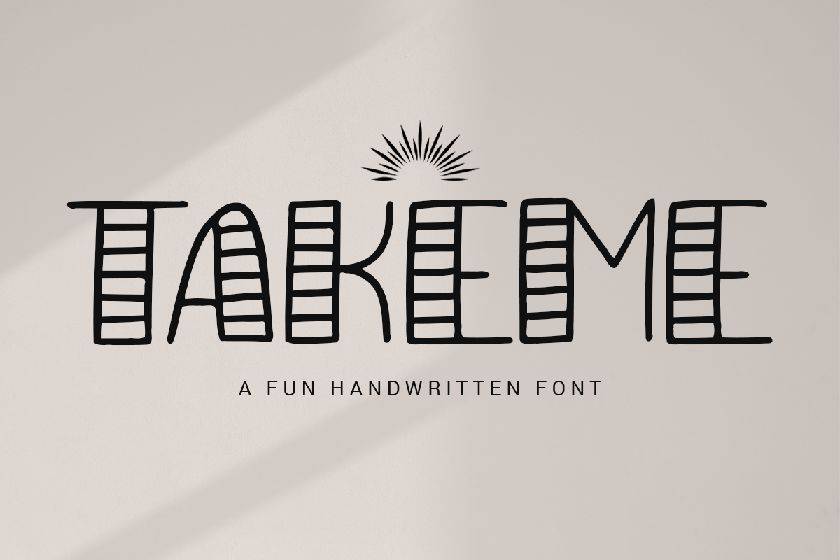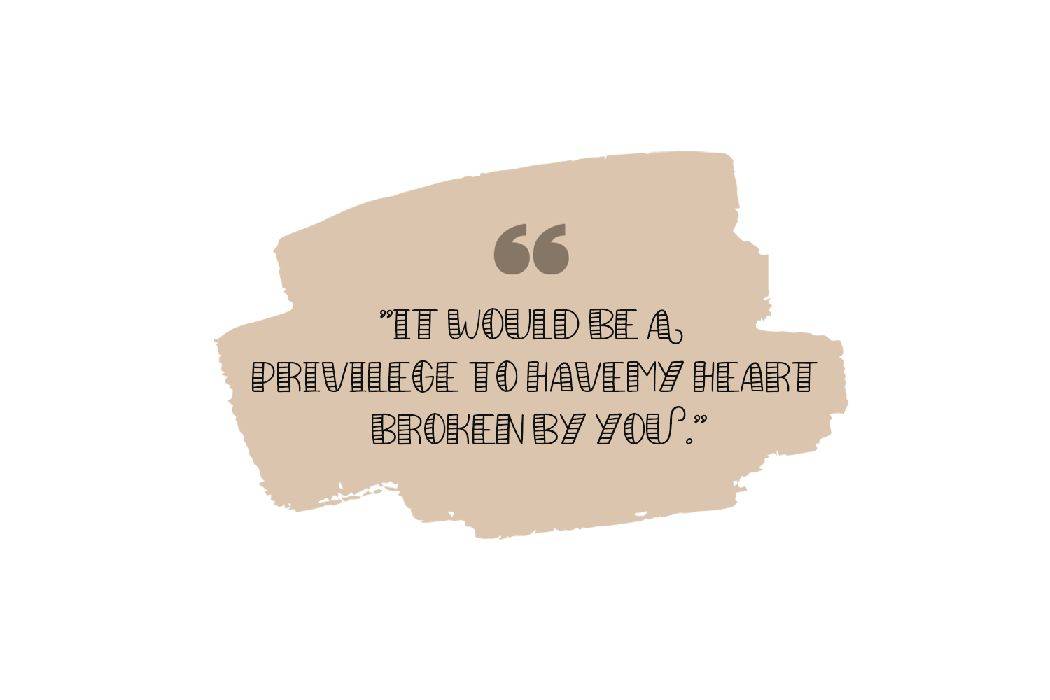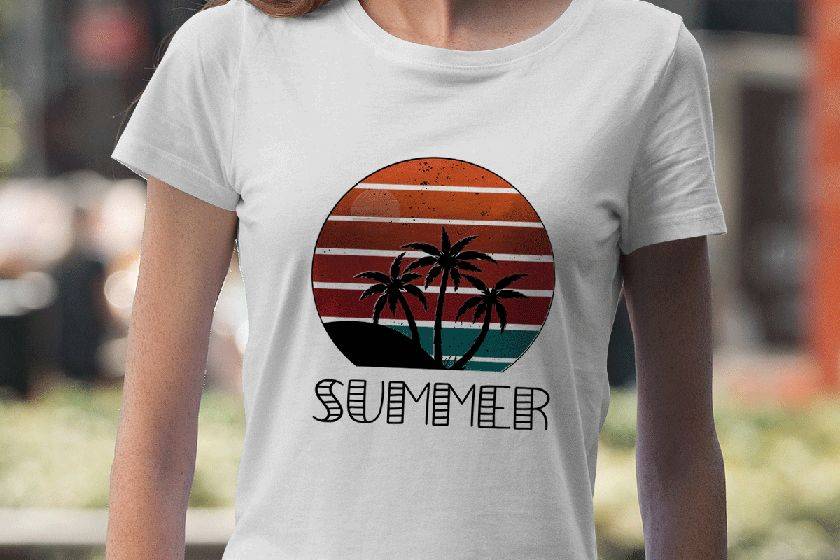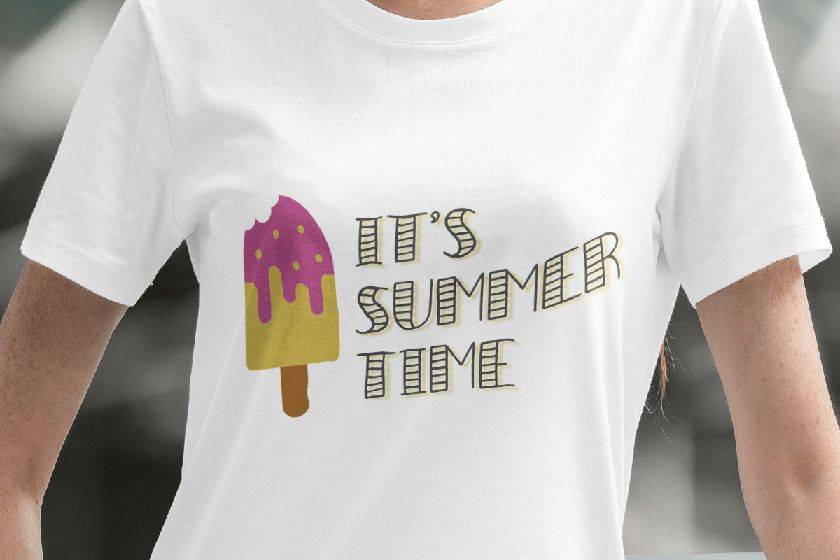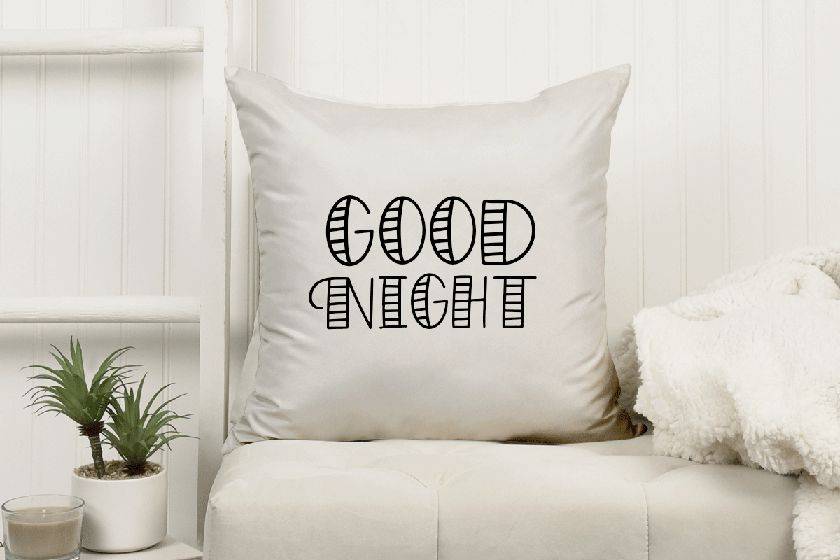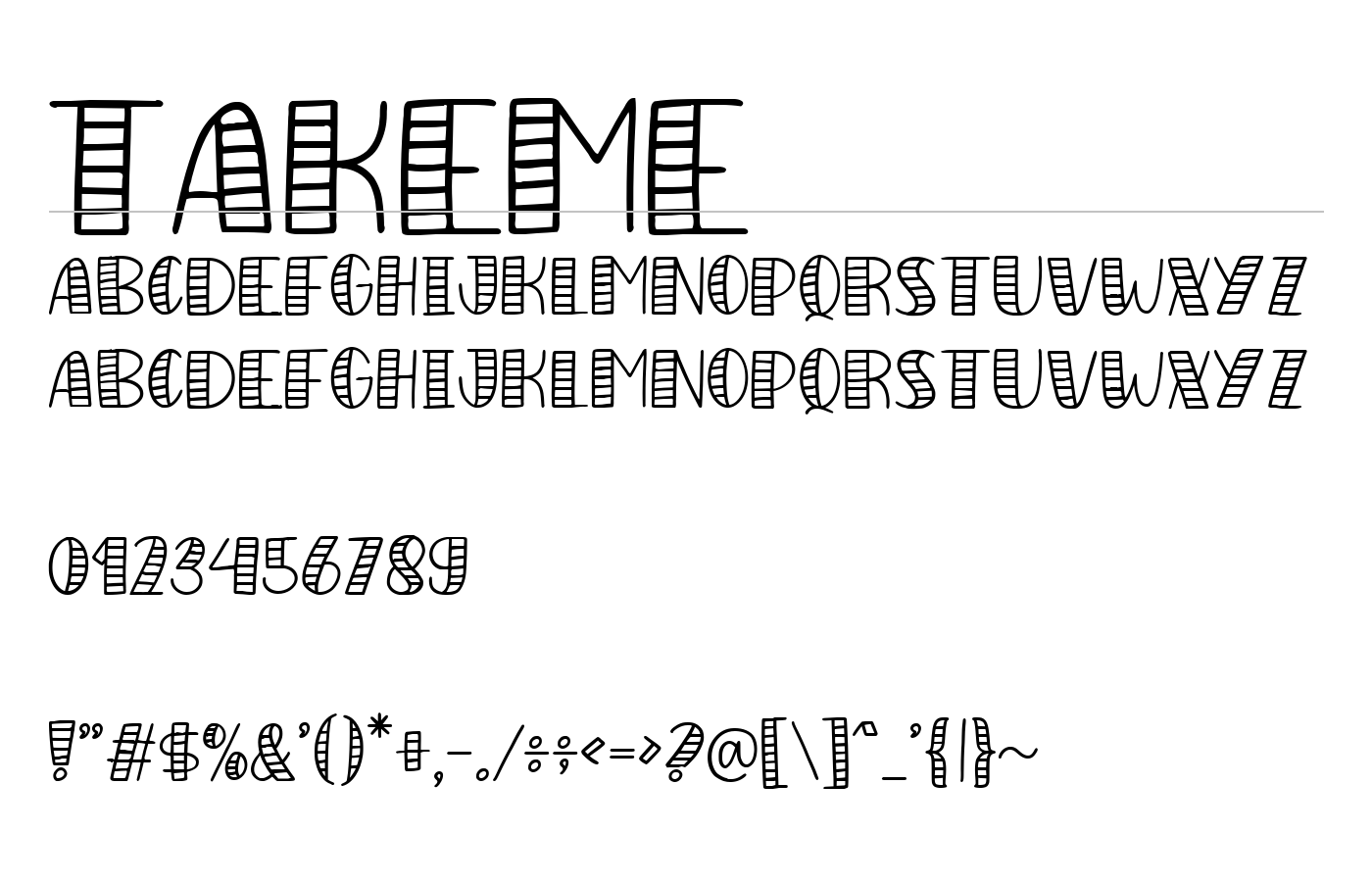
Takeme is a playful and quirky sans serif font with a hand-drawn feel, featuring tall, narrow letterforms decorated with horizontal stripes inside the strokes. Its light weight and irregular shapes give it a fun, energetic vibe perfect for creative projects, informal branding, and eye-catching headlines where personality and uniqueness are key. This font works well for posters, children's materials, and artistic designs that want to convey friendliness and originality.
Takeme Font
About Takeme Font
| Font family | Takeme Font |